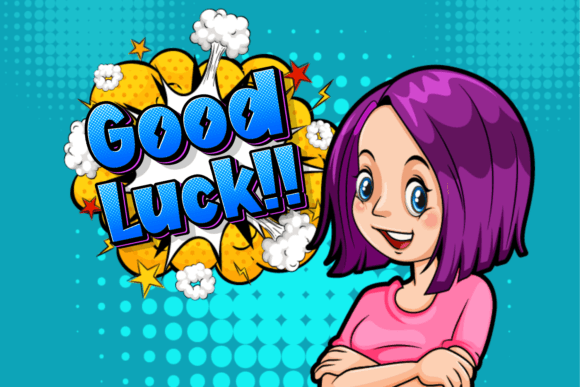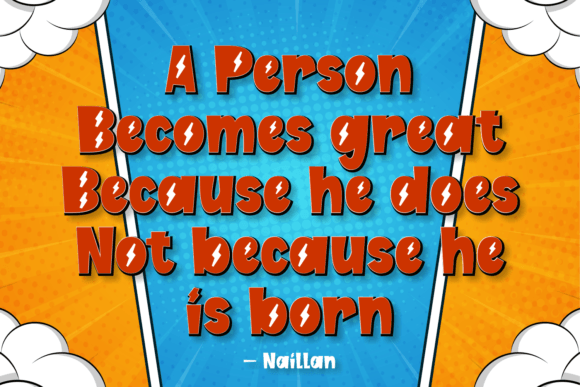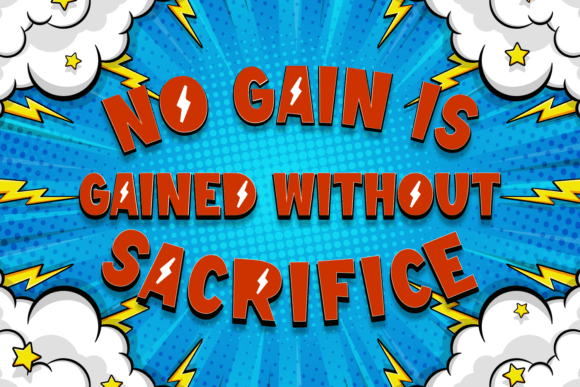
Introduction to More Power Font
More Power is a bold and energetic cartoon font featuring dynamic letterforms with thunderstrike elements incorporated into the design.
The font is playful and electrifying, making it ideal for action-packed and superhero-themed designs The playful, cartoonish design makes More Power ideal for childrenโs projects, from comic books to games and merchandise.
Key Features of More Power Font